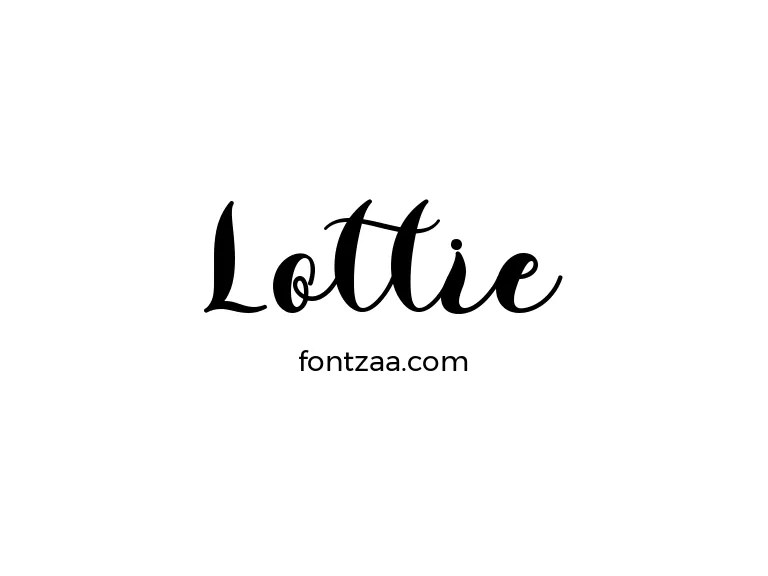
Lottie Font is an elegant typeface published by Yoga Letter 2021 (Isroni Yoga Prasetya). The download includes 2 font files (OTF and TTF) with 327 glyphs, covering uppercase and lowercase letters, numerals, common punctuation, accented Latin characters and currency symbols. It suits invitations, wedding stationery, signatures, quotes and elegant branding, particularly at larger sizes where the letter shapes are easier to see.
Lottie Font Family
| Designer | Yoga Letter 2021 (Isroni Yoga Prasetya) |
| Category | Script |
Pairing and Use
For body text, pair Lottie Font with a clean sans serif such as Montserrat or Lato and keep the font itself for headlines and key words.